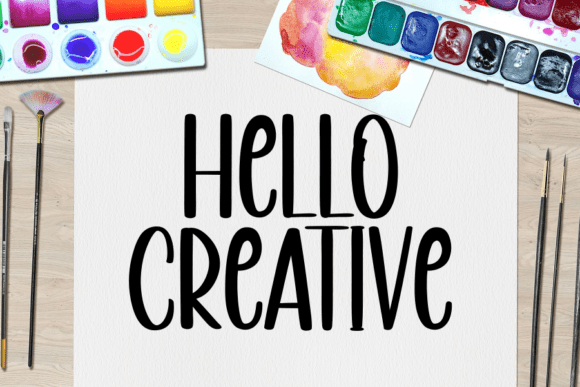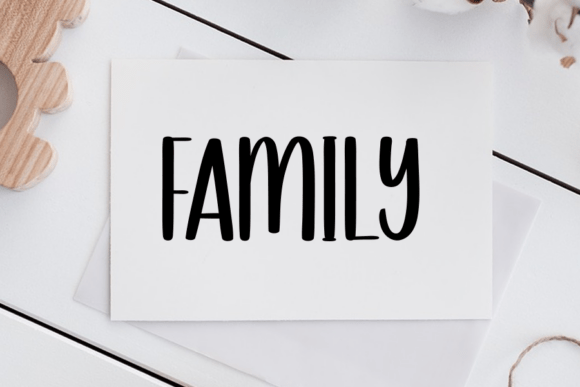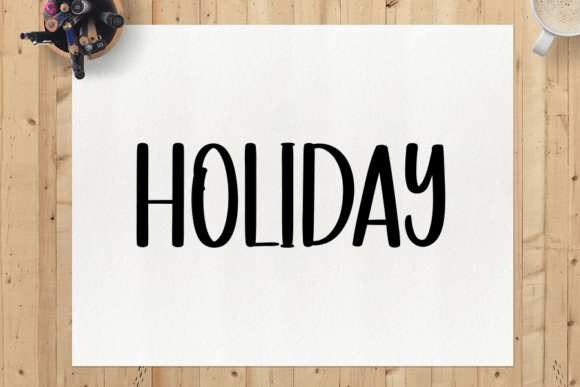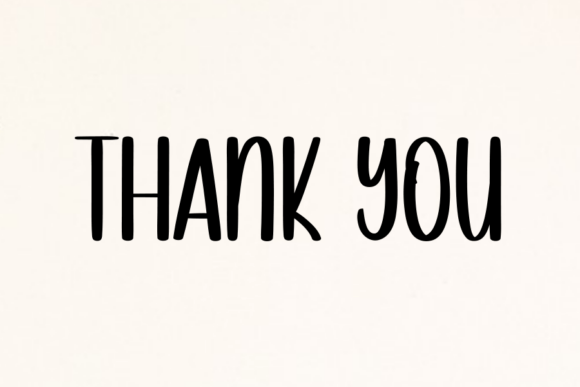
Bakery Font: The Simple Handwritten Font for Your Creative Projects
Are you a designer or crafter looking for a font that can add a simple and natural feel to your next project? Look no further than the Bakery font! This versatile font is a beautiful, handwritten script that can be used for a wide range of applications, from greeting cards to headlines and more.
What is Bakery Font?
Bakery font is a simple handwritten font that is perfect for designers and crafters who want to add a personal touch to their projects. The font has a clean and elegant look, making it suitable for a variety of uses, including:
• Greeting cards and invitations
• Headlines and titles
• Signs and posters
• Digital and print media
Key Features of Bakery Font
So, what makes Bakery font so special? Here are some of its key features:
• Handwritten look: The font has a beautiful, handwritten look that adds a personal touch to any project.
• Simple and elegant: The font is clean and elegant, making it perfect for a wide range of applications.
• Versatile: The font can be used for both digital and print media, making it a great choice for designers and crafters.
• Easy to read: The font is easy to read, even at small sizes, making it perfect for body text and headlines.
Benefits of Using Bakery Font
So, why should you choose Bakery font for your next project? Here are some of the benefits of using this versatile font:
• Adds a personal touch: The handwritten look of the font adds a personal touch to any project, making it perfect for designers and crafters who want to create unique and personalized designs.
How to Use Bakery Font in Your Designs
In conclusion, Bakery font is a beautiful, handwritten font that is perfect for designers and crafters who want to add a simple and natural feel to their projects. With its clean and elegant look, versatility, and ease of use, it’s a great choice for a wide range of applications. So why not give it a try and see how it can enhance your next project?